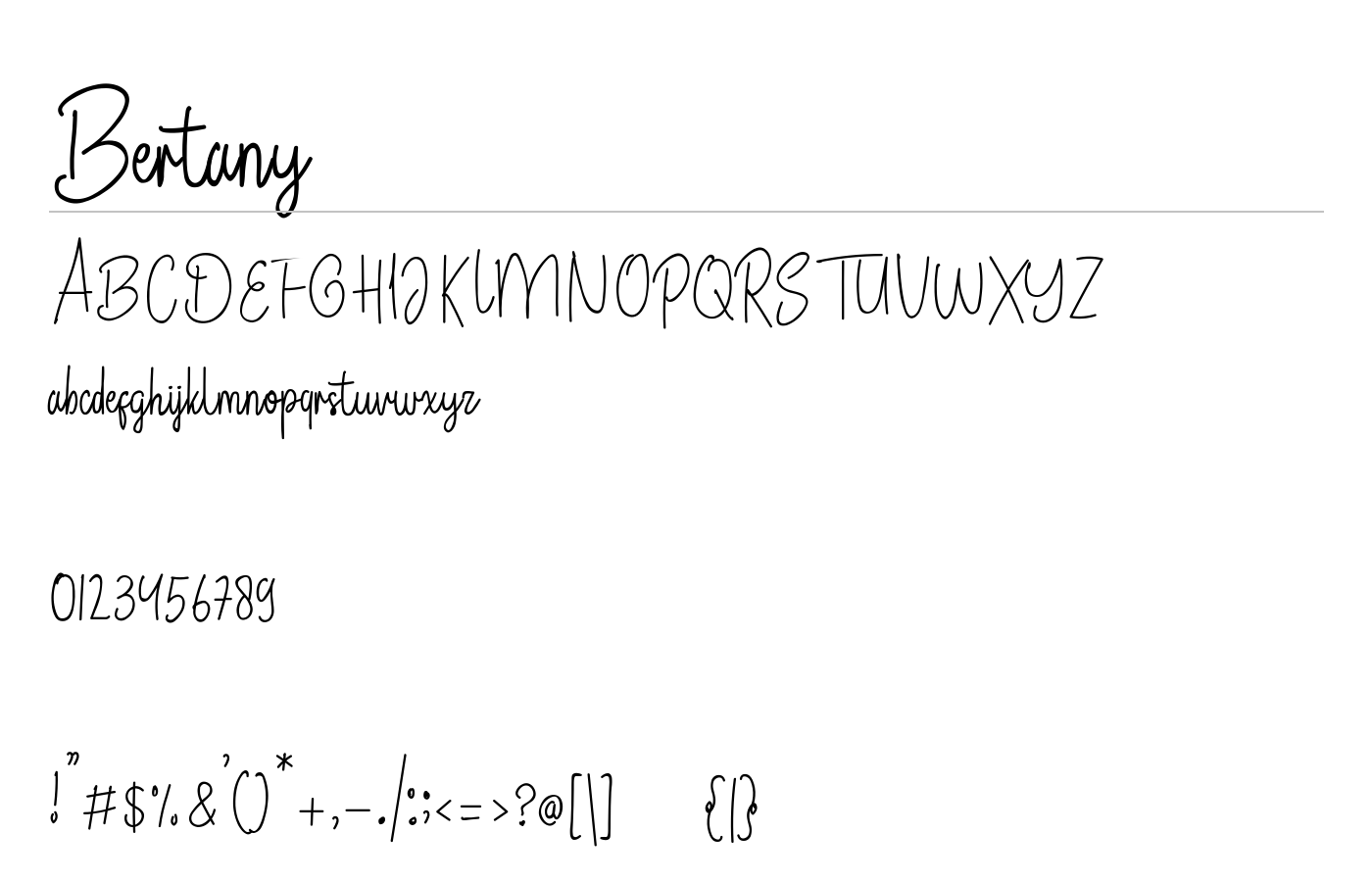
Bertany is a delicate, handwritten script font with a light and airy feel, featuring tall, slender letterforms and smooth, flowing strokes that mimic natural handwriting. Its playful yet elegant style makes it perfect for personal branding, invitations, and creative projects where a friendly, approachable touch is desired. This font works well in headlines and decorative text, adding a unique, charming personality to designs without overwhelming the overall composition.
Bertany Font
About Bertany Font
| Font family | Bertany Font |
| Designer | Letterday Studio |